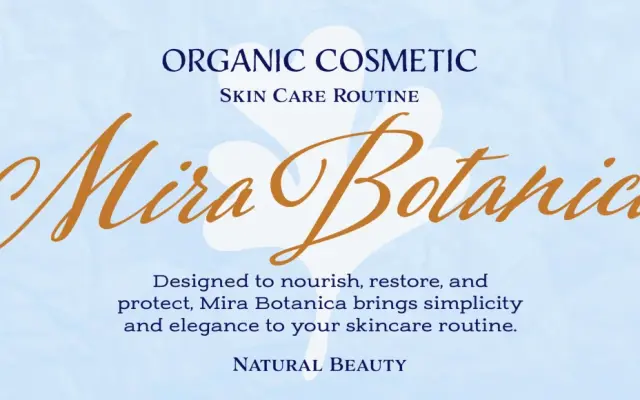
Adorn
A sprawling 41-style collection of hand-lettered and decorative typefaces built for wedding stationery, invitations and celebratory design.
Spanning scripts, copperplate, engraved display faces, serifs, slab serifs, condensed and expanded sans serifs, monograms, banners, frames and ornaments, Adorn is designed to be mixed and matched within a single project. Each sub-family ships in a standard and Smooth variant, the latter suited to lower-resolution output. OpenType features including multiple stylistic sets, swashes, titling capitals and contextual alternates are accessible without specialist software via coded shortcuts.
A large, mixed-style decorative collection spanning hand-lettered scripts, copperplate, engraved display, serif, slab serif, sans serif and ornament fonts — best classified as display due to its primary purpose in celebratory and decorative contexts.